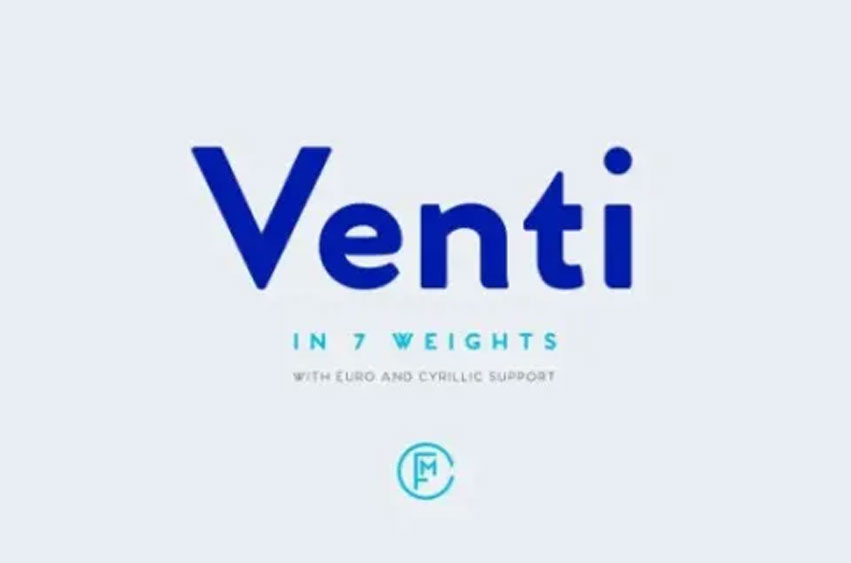
Venti CF Font Family is a geometric font family with a warm, readable character. Inviting and versatile, Venti’s engaging form, subtle imperfections and human tone make it an enticing choice for headlines, quotations and short texts.
Although hinted for the screen, Venti also excels in print design. OpenType features include ligatures, small caps, oldstyle figures and fractions. Russian and Ukrainian Cyrillic alphabets are supported (with an increased x-height) as are several European languages. OpenType features include: Ligatures, Russian and Ukrainian Cyrillic support, Small Caps, Lining, oldstyle and tabular numbers and fractions.